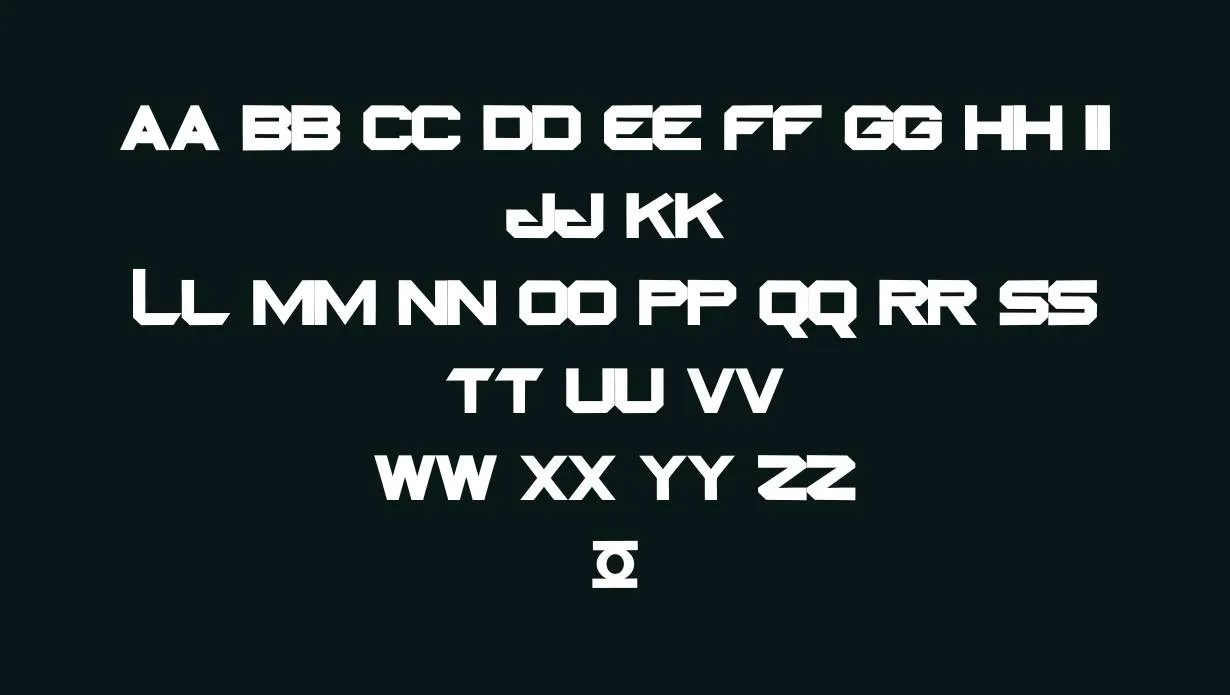
The Green Lantern font, inspired by the iconic comic book character, is frequently used in comic-related designs, posters, or merchandise for a fan base.
| Name | Green Lantern Font |
| Designer | Iconian Fonts |
This font typically appears in a bold weight, giving it a strong and striking appearance, and it often maintains a standard width for easy readability.